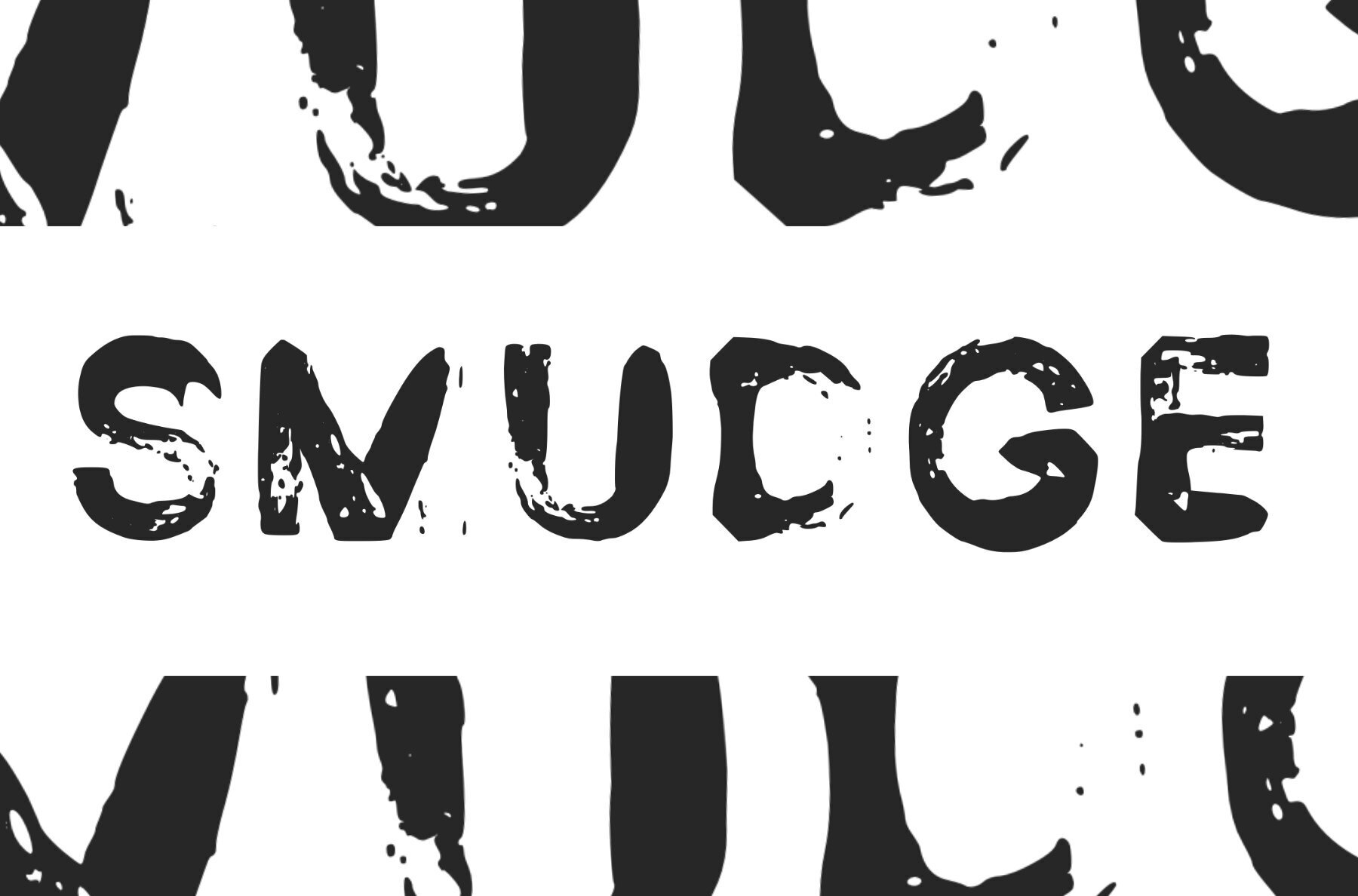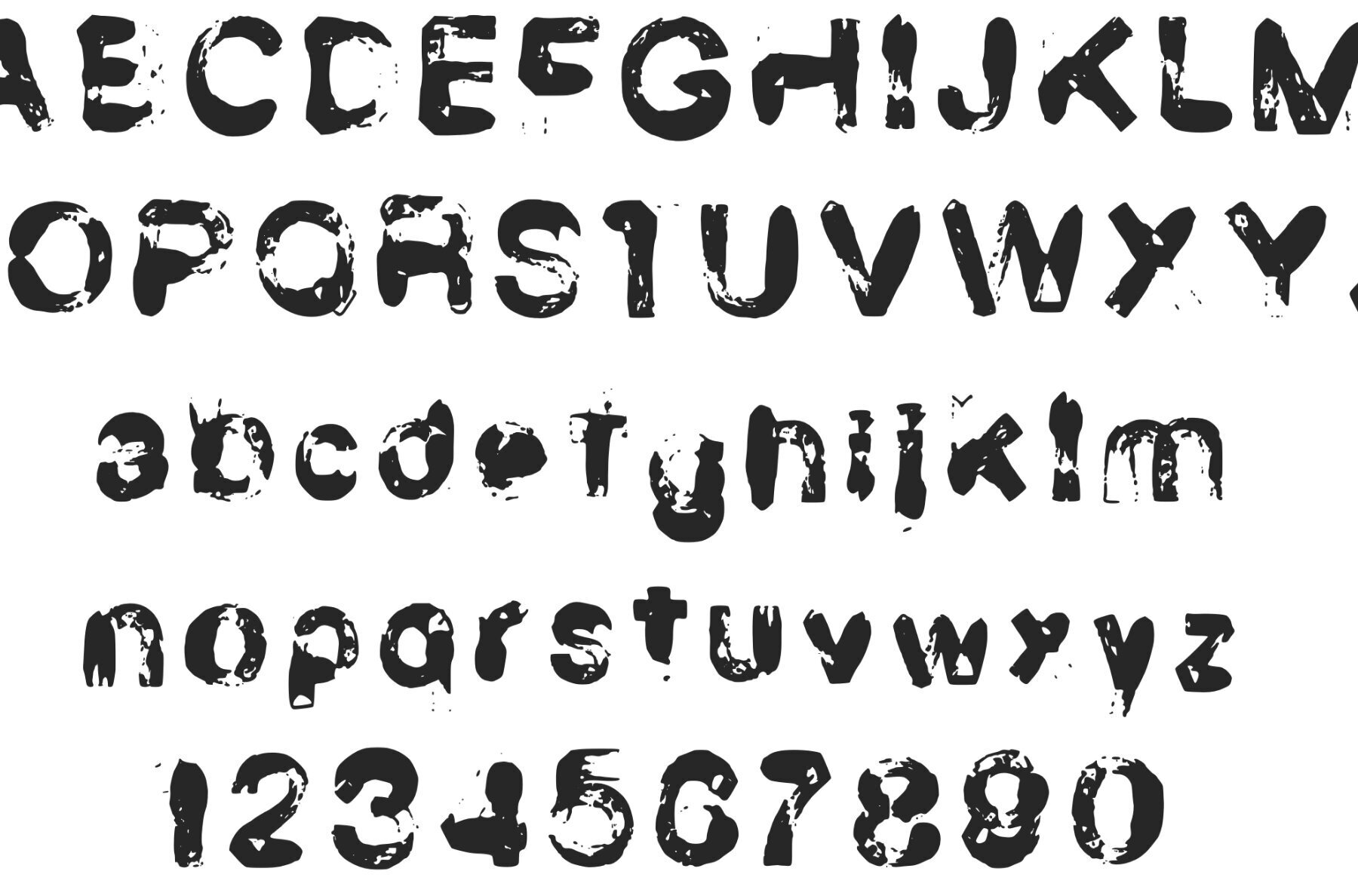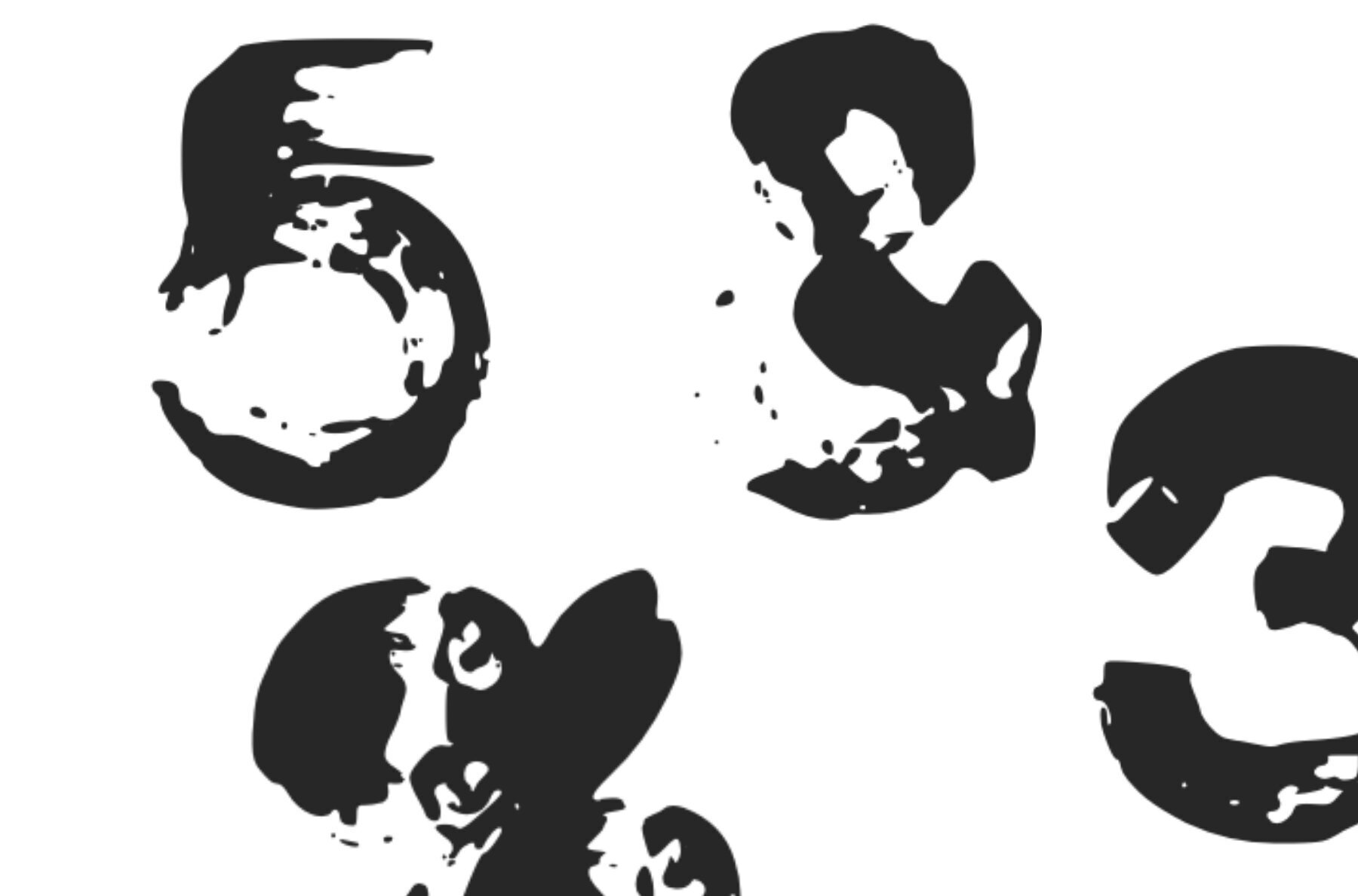
Smudge Font
Smudge Regular
Unleash creativity with Smudge, a font that exudes an ink-inspired, messy charm, perfect for bold display designs. Its rounded and rough character enhances projects with an expressive, hand-drawn feel. Smudge's distinctive style stands out in artistic and daring design applications, making it an ideal choice for headlines, posters, and creative digital projects.Smudge: An Ink-Inspired Display Font